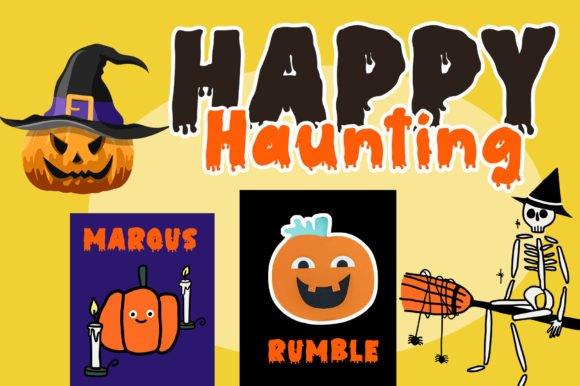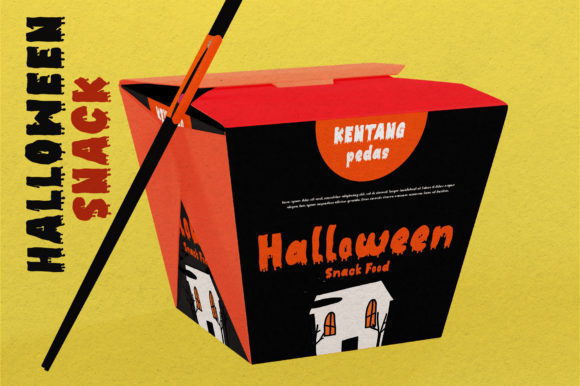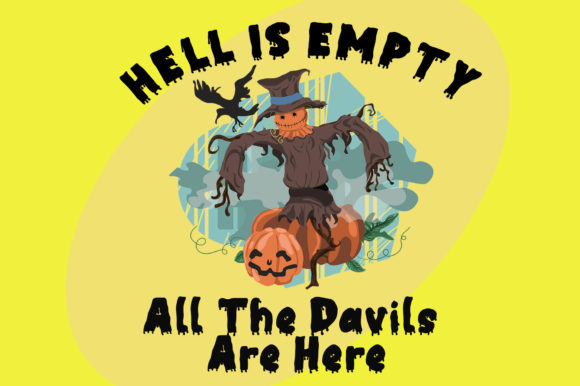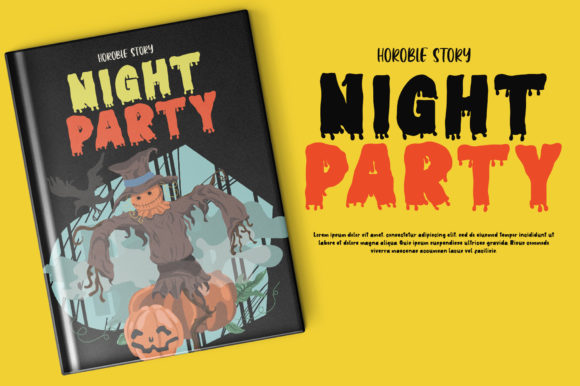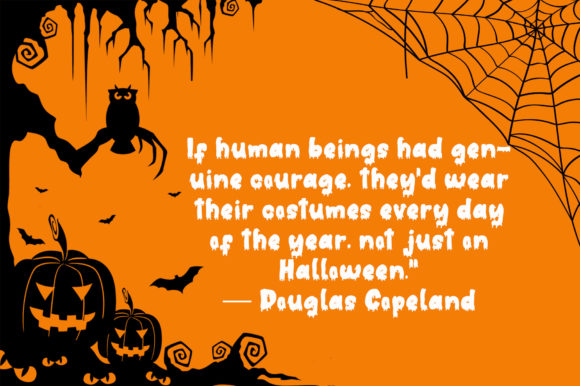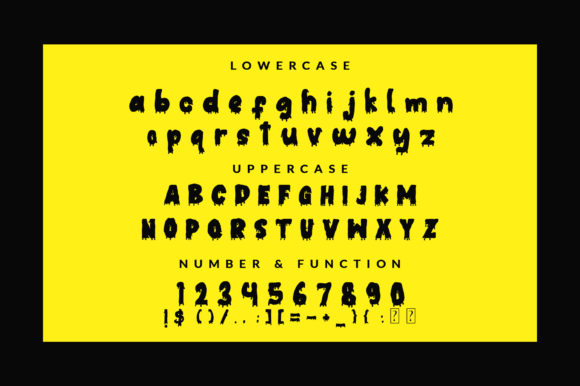
Introduction to Horoble Moment Font
Horoble Moment is a creepy and fun looking display font.
Add it to your Halloween crafts, horror movie posters, t-shirts and anything else that requires a spectacular look .
Key Features of Horoble Moment Font
Why Choose Horoble Moment Font?